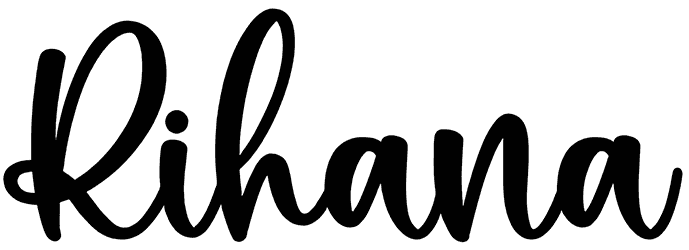
Rihana Font
The stunning visual of a handwritten font like this one is going to throw a charming vibe into your words. Rihana font with a soft and natural form is a nice choice for varied projects like a wedding invitation card. With an A-Z support of characters, this cursive font can attract your followers and make your name memorable.